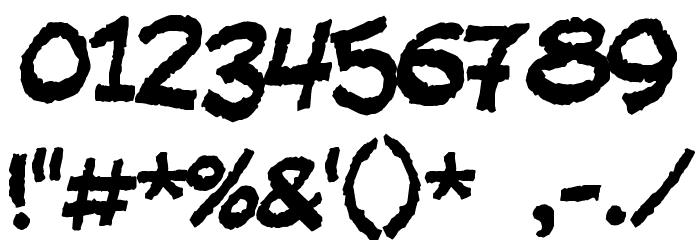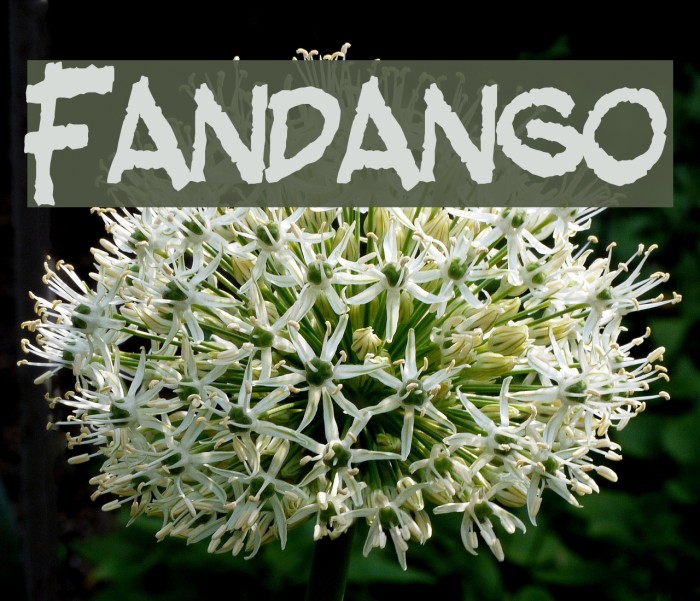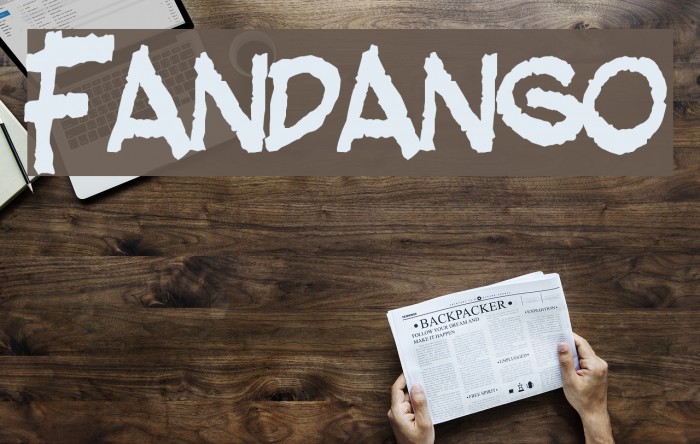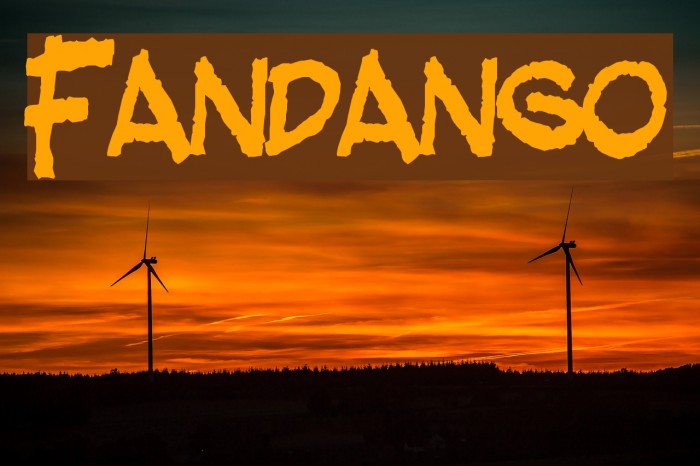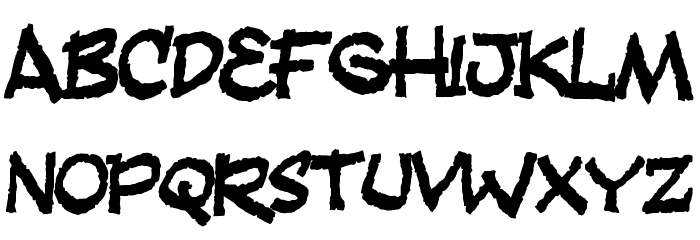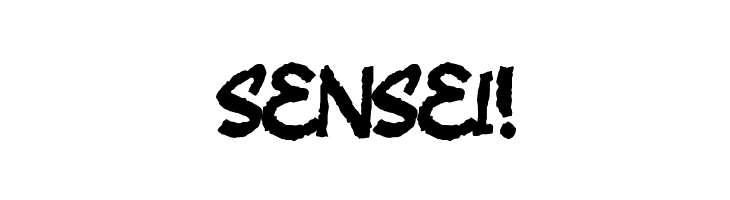
Fandango Font
Fandango Description
This font features a bold and expressive style, characterized by its jagged and irregular edges that give it a hand-drawn, graffiti-like appearance. The uppercase and lowercase letters maintain a consistent height, contributing to a cohesive look. Numbers and special characters follow the same rugged aesthetic, making them stand out prominently. The font's unique style is both playful and edgy, suitable for projects that require a strong visual impact. Its rough texture and dynamic form make it ideal for creative and unconventional designs.
A bold, jagged, hand-drawn style with a graffiti-like appearance from Handwritten fonts.
- Proposed Projects: Ideal for street art designs, music album covers, event posters, and edgy branding projects.
- Use Case: Logos, Posters, Headlines